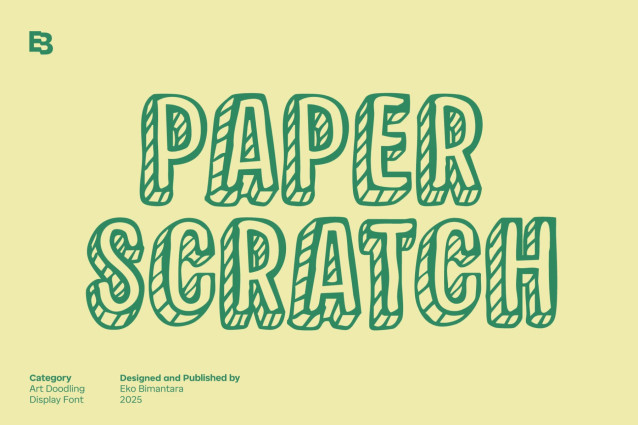
Paper Scratch Font
Paper Scratch Font is a chunky, comic, and cartoon display font. With its neat and joyful personality, this font will enhance any project you wish to create!